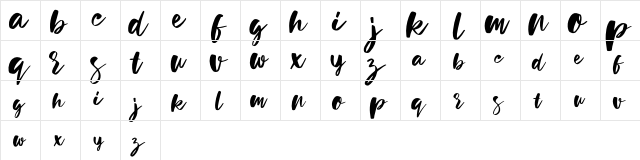
Holiday Sun Regular
Design Context for Holiday Sun Typeface
Holiday Sun is a composed and adaptable typeface that performs quietly and consistently across a wide range of design contexts.